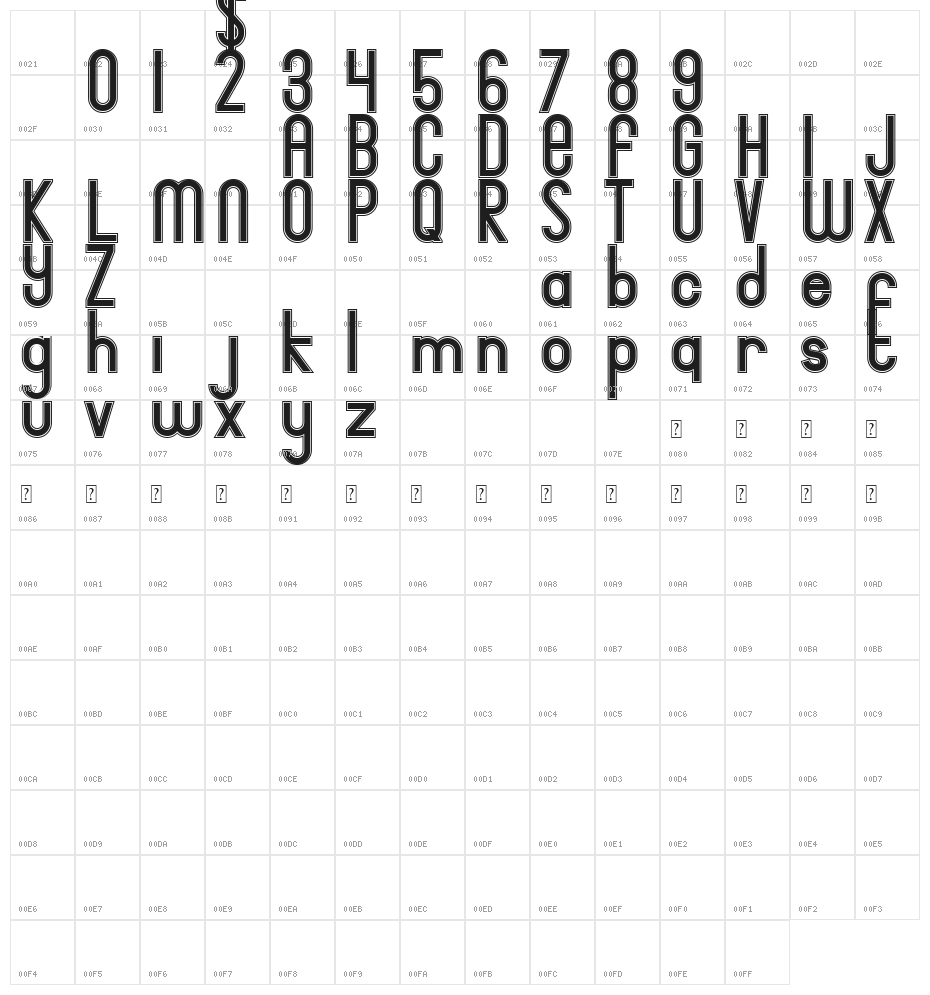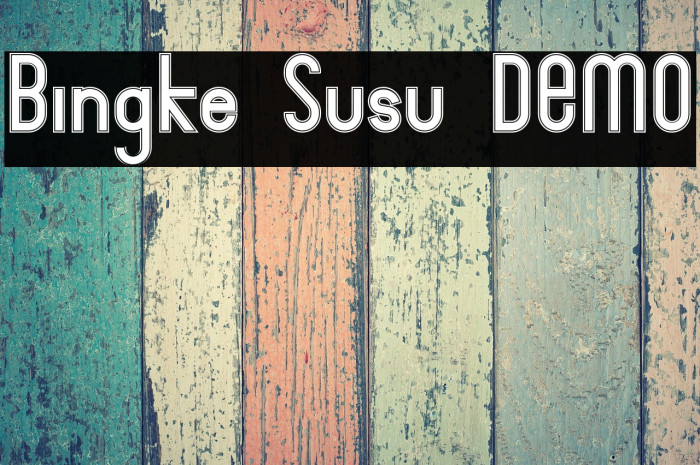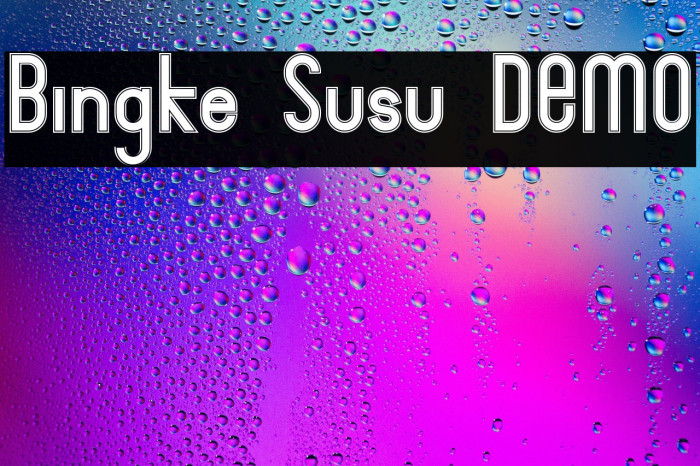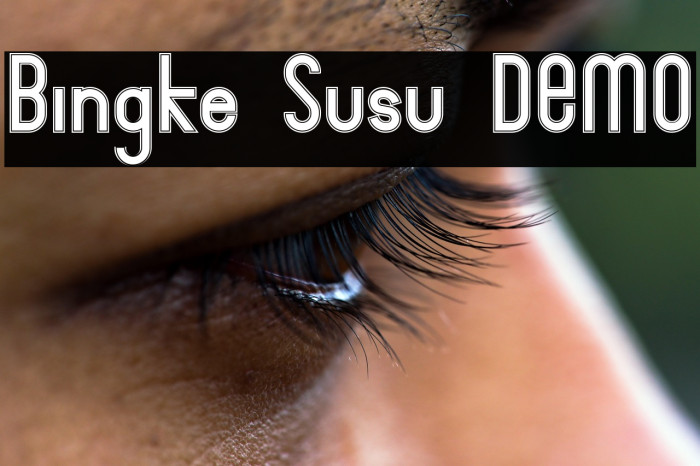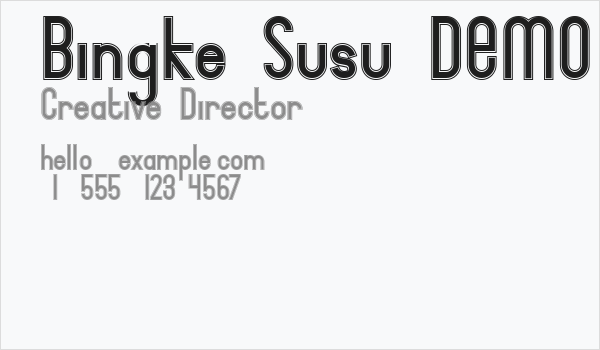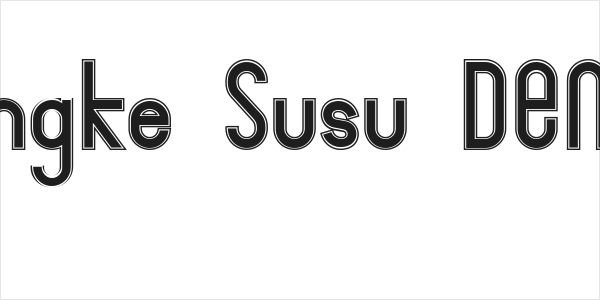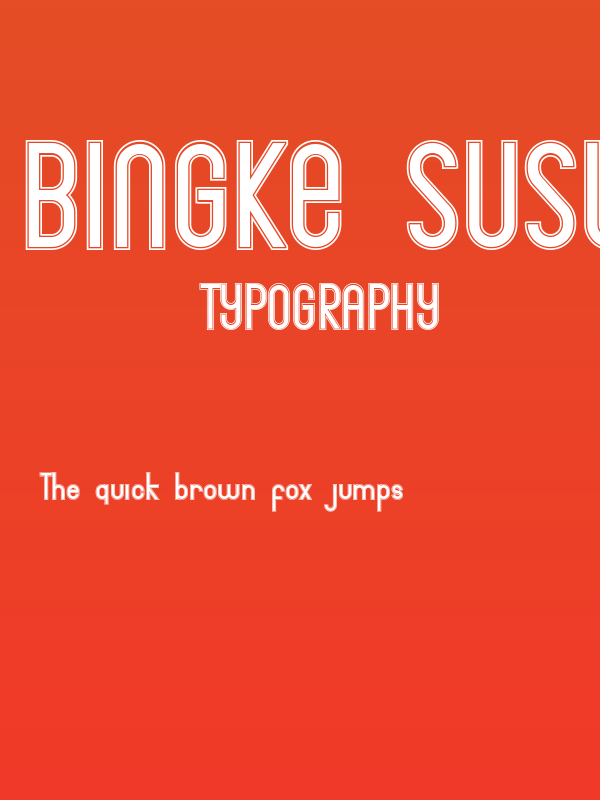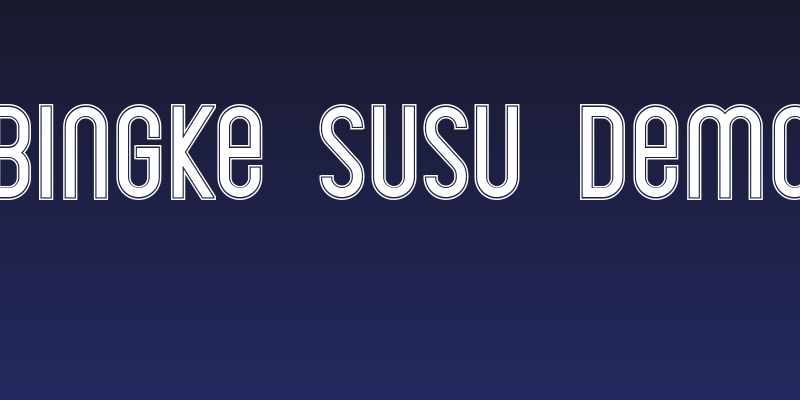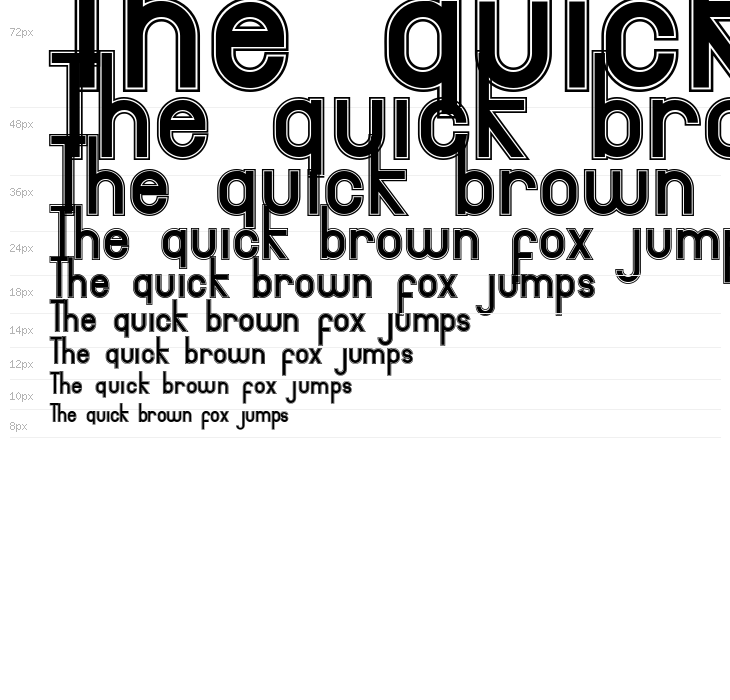
Bingke Susu DEMO Font
Bingke Susu DEMO Description
This font features a bold, outlined style with a modern and geometric appearance. The characters are tall and narrow, with clean lines and a consistent stroke width. The uppercase letters are particularly striking, with a uniform height and a strong presence. The lowercase letters maintain the same geometric style, offering a cohesive look across both cases. The numbers are equally bold and maintain the same outlined style, ensuring readability and visual impact. The special characters are designed to match the overall aesthetic, making this font suitable for a variety of applications where a modern and eye-catching typeface is desired.
Proposed ProjectsIdeal for branding, posters, headlines, and any design requiring a bold and modern typeface.